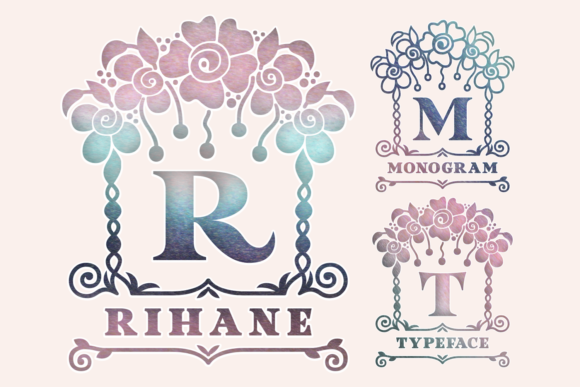
Introducing Rihane Font, an exquisite decorative font that will add a touch of elegance to your designs.
With its charming curves and soft lines, Rihane Font exudes a warm and inviting feel, creating a sense of intimacy and connection with your audience.
Handcrafted with meticulous attention to detail, Rihane Font possesses a distinctive charm that sets it apart from ordinary fonts. Its organic and fluid form evokes a sense of playfulness and creativity, inviting you to experiment and express your individuality.
Whether you are designing wine labels, invitations, logos, or any other project that calls for a touch of whimsy, Rihane Font is the perfect choice. Its versatility extends to both digital and print applications, making it an ideal companion for a wide range of projects.
Imagine the impact of your wine labels adorned with Rihane Font's graceful characters. Each bottle will become a work of art, drawing the eye and capturing the imagination of wine enthusiasts.
Picture your invitations exuding warmth and charm, enticing recipients to open them and discover the special occasion you have in store.
With Rihane Font, your designs will embody a sense of artistry and craftsmanship that is sure to leave a lasting impression on all who encounter them.